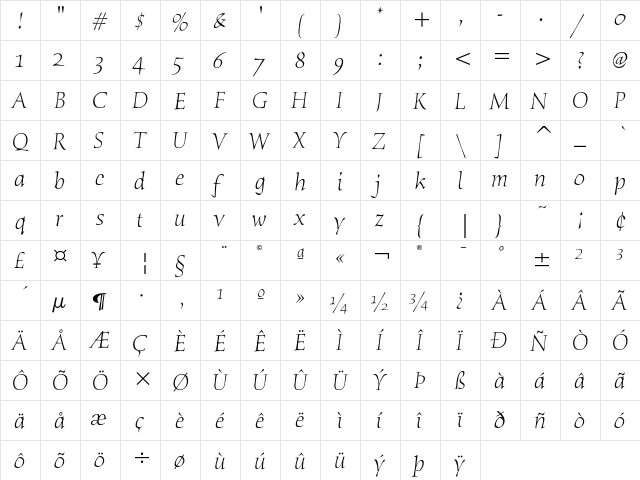
Humana Serif ITC Light Italic Font Preview
Humana Serif ITC Light Italic
Design Context for Humana Serif ITC Typeface
Humana Serif ITC brings classic typographic sensibility to the table — its serifs and measured letterforms reflect centuries of print heritage. The slanted form adds forward momentum and visual energy. The delicate stroke weight brings airiness and refinement to layouts.